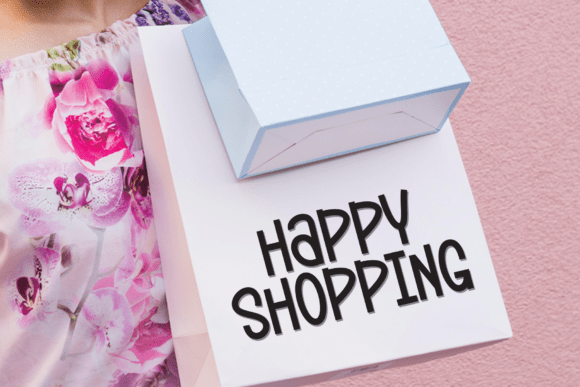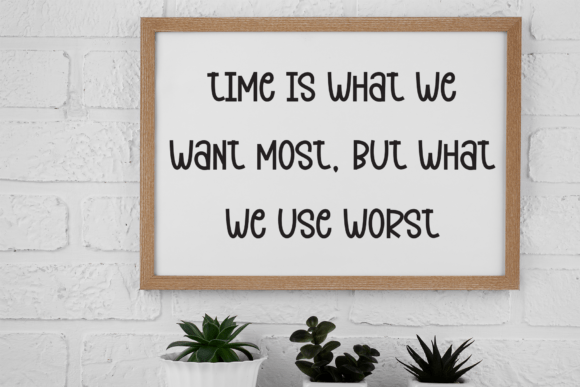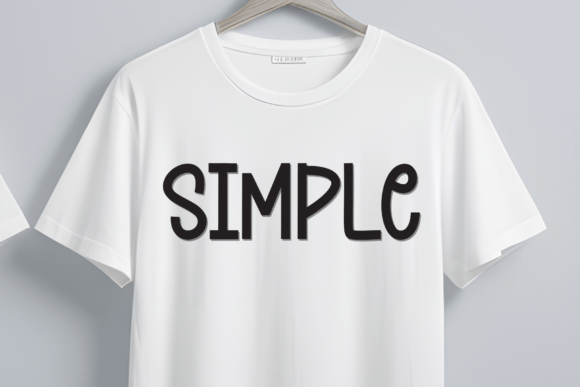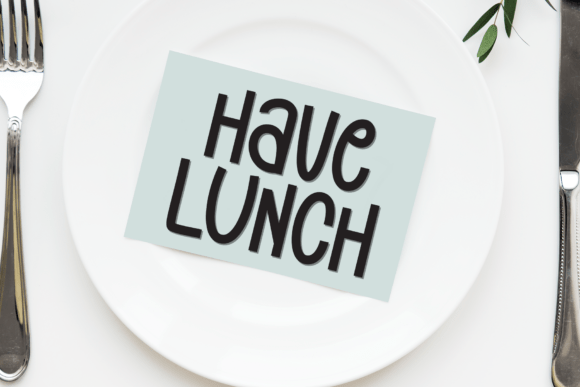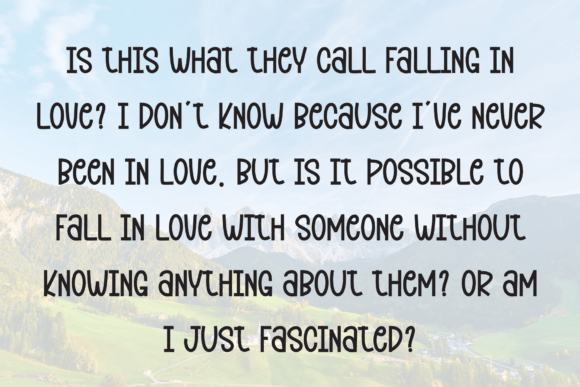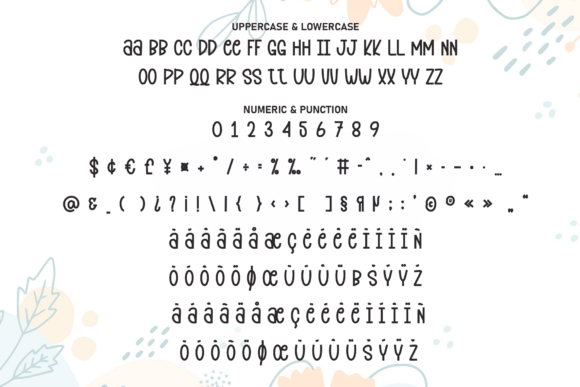
Introducing Game Over Font: The Ultimate Delight for Designers and Crafters
Are you tired of using the same old fonts for your designs and crafts? Look no further! We’re excited to introduce the Game Over Font, a delightful handcrafted display font that exudes a sweet and friendly character. This charming font is perfect for designers and crafters who want to add a playful and fun essence to their creations.
The Charm of Game Over Font
The Game Over Font is a unique and carefully crafted font that sparks joy in every letter. Its sweet and friendly character makes it perfect for a variety of design projects, from wedding invites to personalized cards. The font’s playful and fun essence is sure to transform your creative milestones into fun-filled creations that will leave a lasting impression.
Whether you’re a professional designer or a crafty DIY enthusiast, the Game Over Font is the perfect addition to your font collection. The font’s versatility makes it suitable for a wide range of design projects, including:
- Personalized cards and gift tags
- Crafting and scrapbooking projects
Why Choose Game Over Font?
So, what sets the Game Over Font apart from other fonts? Here are just a few reasons why designers and crafters love this font:
- Unique and Handcrafted: The Game Over Font is a one-of-a-kind, handcrafted font that adds a personal touch to your designs.
- Playful and Fun: The font’s playful and fun essence is sure to bring a smile to your audience’s face.
- Versatile: The font is suitable for a wide range of design projects, from formal to informal.
- Easy to Read: The font is clear and easy to read, making it perfect for body text and headings.
How to Use Game Over Font
- Experiment with Font Sizes: The Game Over Font looks great in a variety of font sizes, from small and delicate to large and bold.
- Pair with Other Fonts: The font pairs well with other fonts, so feel free to experiment with different font combinations.
- Add a Pop of Color: The Game Over Font looks great in a variety of colors, so don’t be afraid to add a pop of color to your designs.
In conclusion, the Game Over Font is a unique and charming font that is perfect for designers and crafters who want to add a playful and fun essence to their creations. With its sweet and friendly character, this font is sure to transform your creative milestones into fun-filled creations that will leave a lasting impression. So why wait? Download the Game Over Font today and start creating delightful designs that spark joy in every letter!